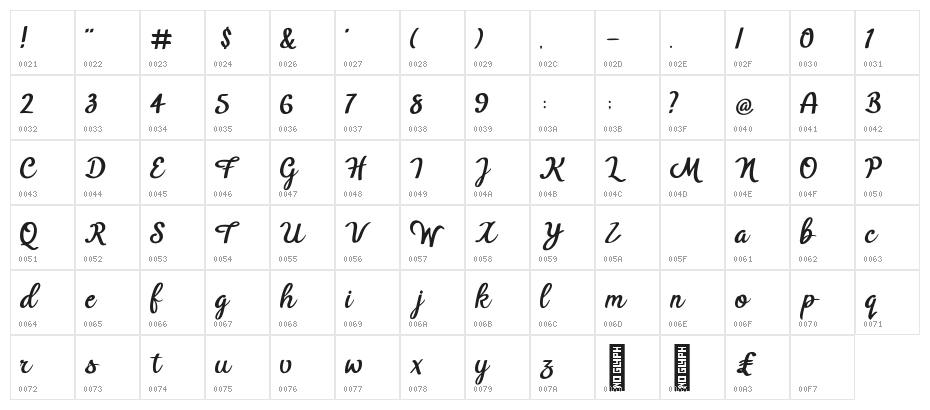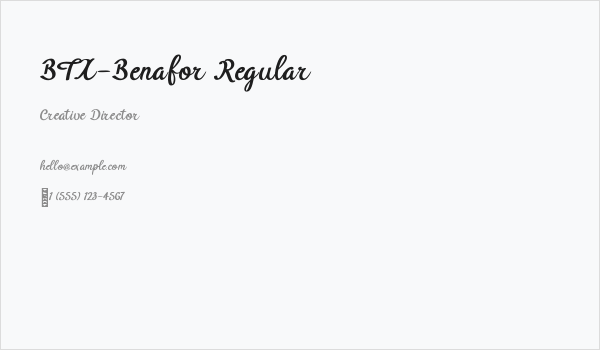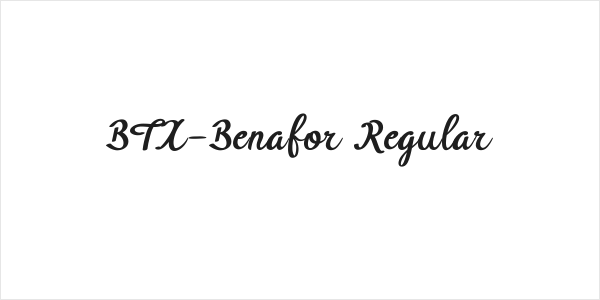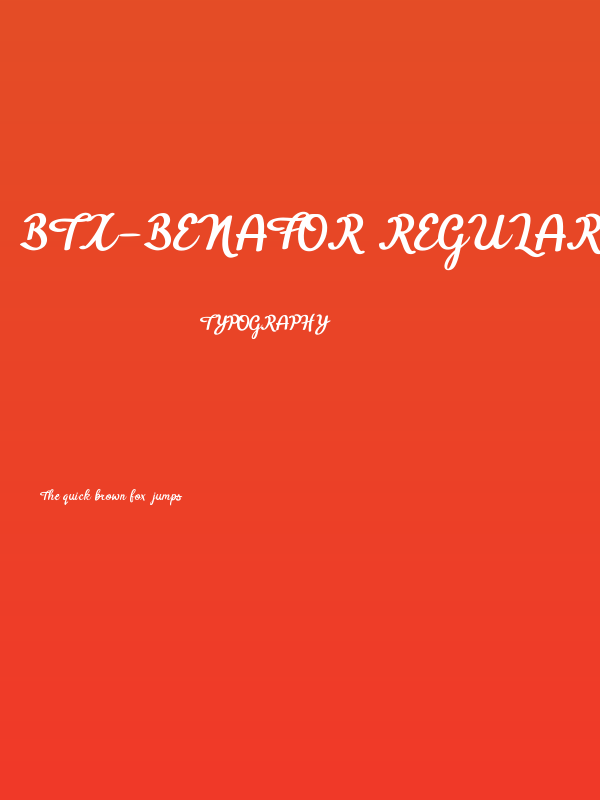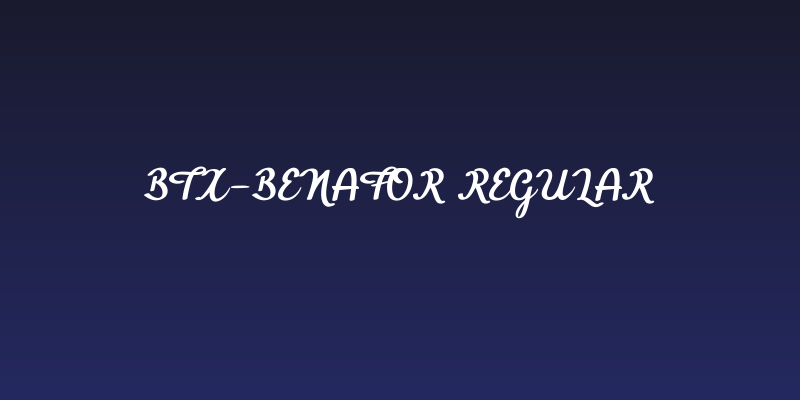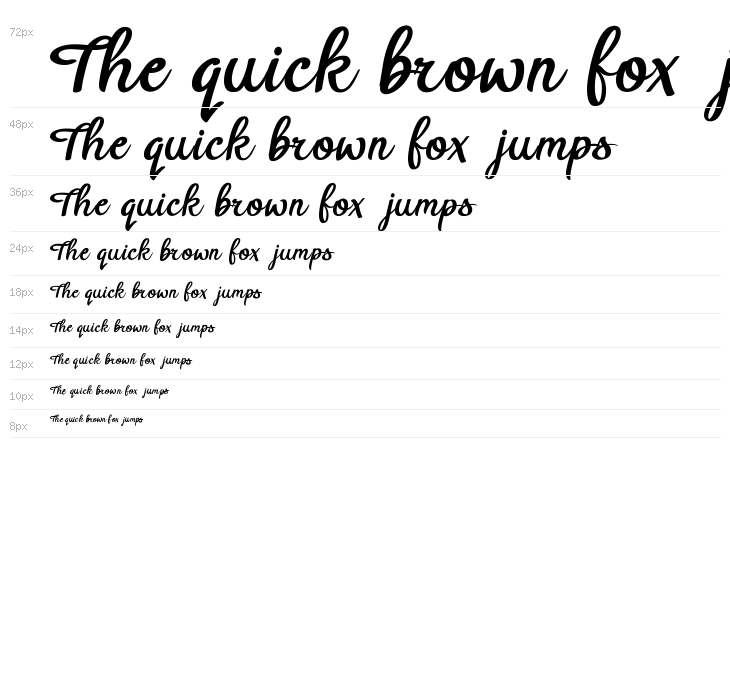
BTX-Benafor Regular Font
BTX-Benafor Regular Description
This font features a flowing, cursive style with elegant curves and a handwritten feel. The uppercase letters are bold and dynamic, with a slight slant that adds a sense of movement and grace. The lowercase letters maintain a consistent style, with smooth connections between characters, enhancing the script-like appearance. The numerals are clear and legible, matching the overall aesthetic. Special characters are thoughtfully designed to complement the alphabet, maintaining the font's cohesive look. This font is ideal for projects that require a personal touch, such as invitations, greeting cards, or branding materials.
| Proposed Projects | Ideal for invitations, greeting cards, branding, and personal projects. |